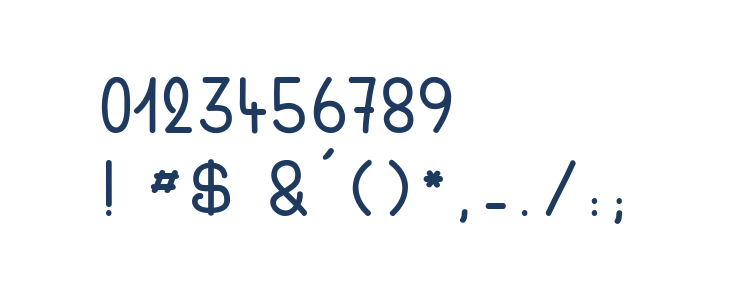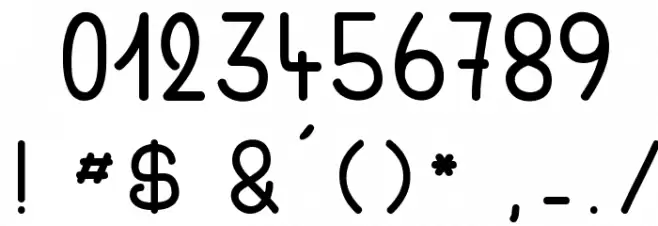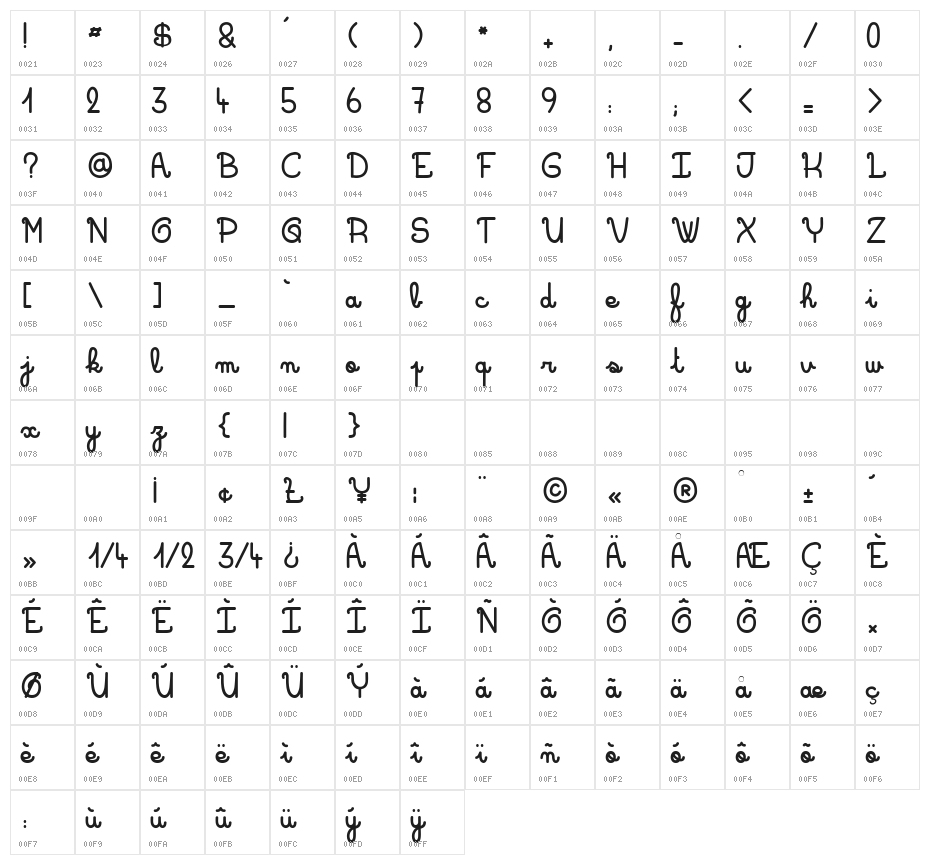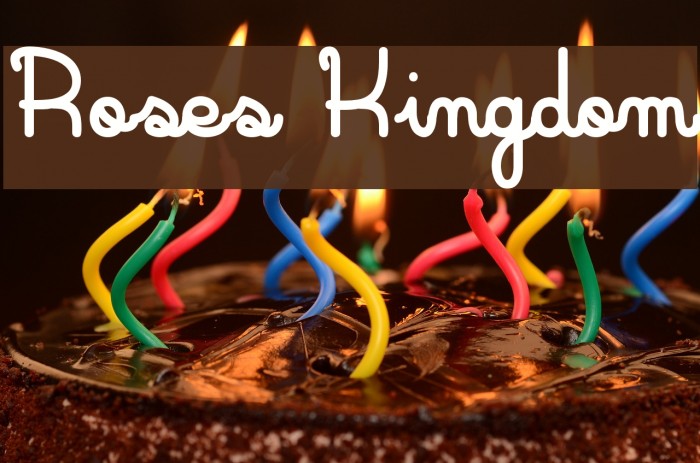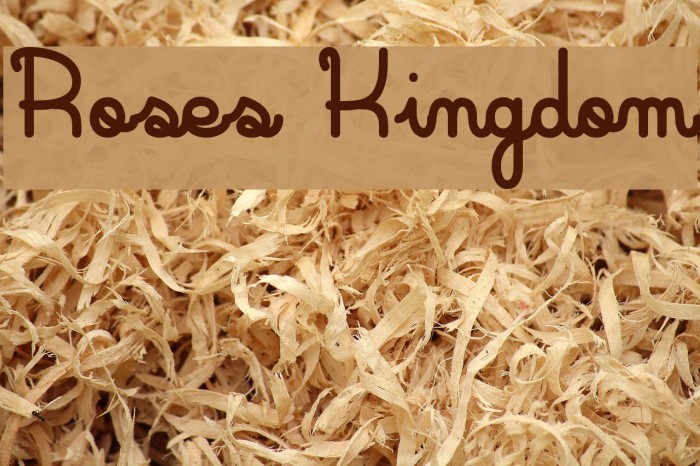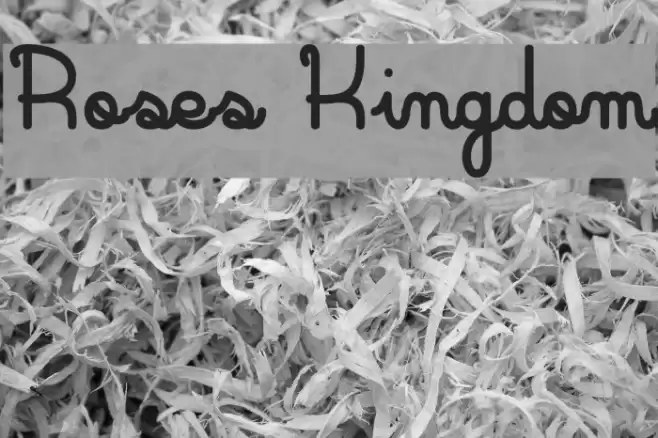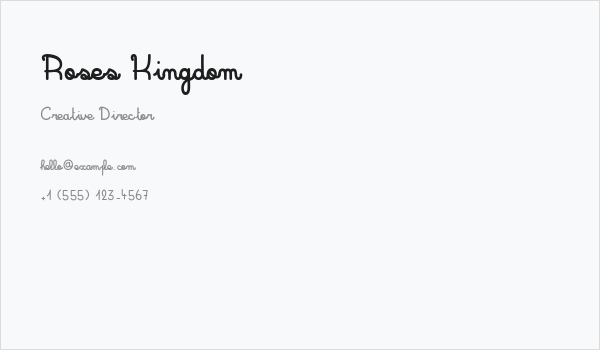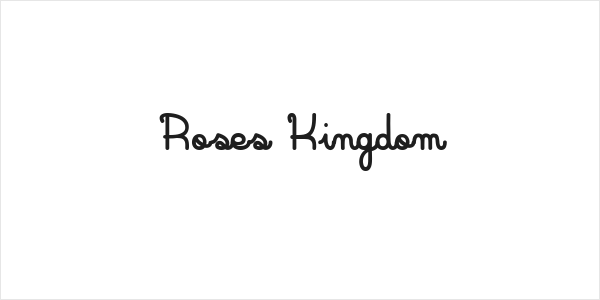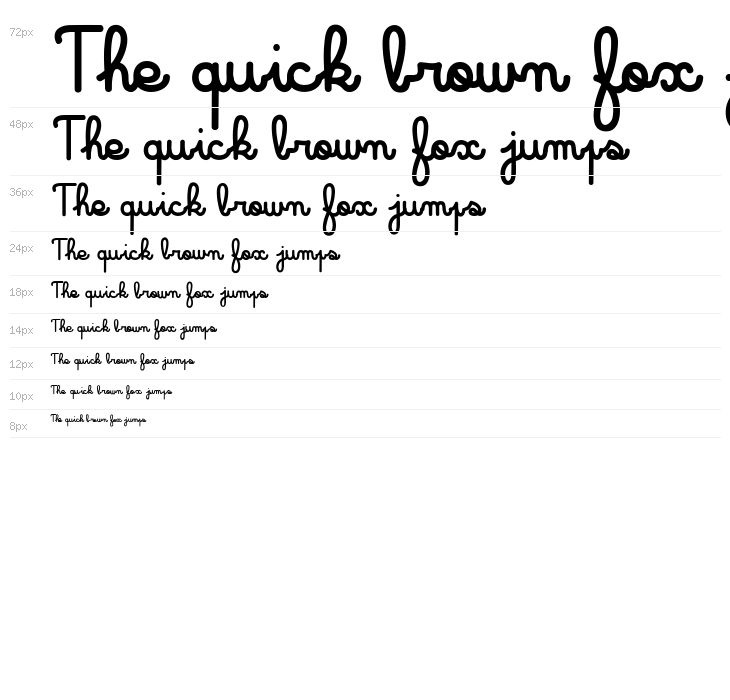
Roses Kingdom Font
Roses Kingdom Description
This font features a playful and casual style with a handwritten appearance. The uppercase letters are rounded and slightly whimsical, giving a friendly and approachable feel. The lowercase letters are connected, resembling cursive handwriting, which adds to its informal and personal touch. The numerals are clear and consistent with the overall style, maintaining the rounded and smooth characteristics. Special characters are well-integrated, ensuring versatility in various contexts. This font is ideal for projects that require a personal, warm, and inviting tone.
| Use Case | Headlines, Logos, Informal text |
| Proposed Projects | Greeting cards, invitations, personal branding, children's books, and casual digital content. |